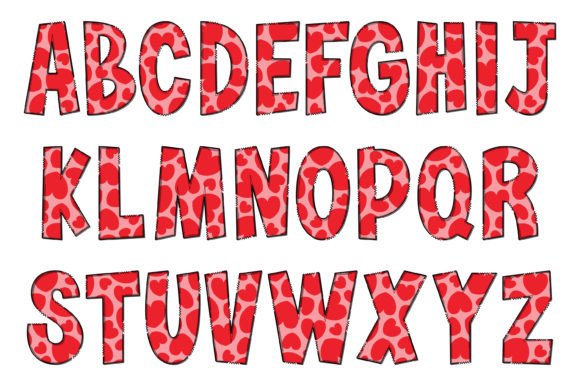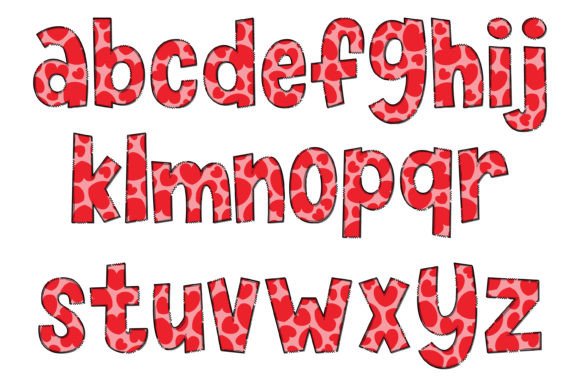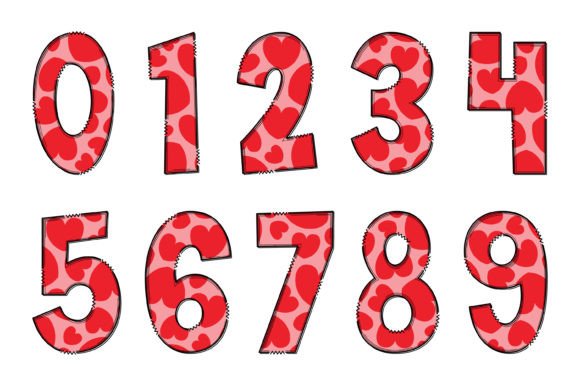
Big Love Font: The Perfect Choice for Playful and Artistic Designs
Are you looking for a font that can add a touch of playfulness and whimsy to your designs? Look no further than the Big Love font! This delightful font is perfect for designers and crafters who want to create engaging and artistic designs that capture the imagination of their audience. In this article, we’ll explore the features and benefits of the Big Love font, and how it can be used in a variety of design projects.
What is Big Love Font?
Big Love font is a color font, specifically an Opentype-SVG font, which means it’s a cutting-edge font technology that allows for colorful and intricate designs. This font is perfect for designs that require a playful and artistic feel, such as children’s books, posters, invitations, greeting cards, and more. The Big Love font is a versatile font that can be used in a wide range of design projects, from digital designs to print materials.
Use Cases for Big Love Font
Big Love fonts are often used in designs that aim to convey a playful or artistic feel. Here are some examples of how this font can be used:
- Children’s Books: Children’s books often utilize fonts that are whimsical, colorful, and easy to read, creating an engaging reading experience for young audiences. The Big Love font is perfect for children’s books, as it’s fun, playful, and easy to read.
- Posters: Posters are a great way to grab attention and convey a message in a visually appealing way. The Big Love font is perfect for posters, as it’s bold, colorful, and eye-catching.
- Invitations: Invitations are a great way to set the tone for an event or celebration. The Big Love font is perfect for invitations, as it’s playful, fun, and festive.
- Greeting Cards: Greeting cards are a thoughtful way to show someone you care. The Big Love font is perfect for greeting cards, as it’s warm, friendly, and inviting.
Tips for Using Big Love Font
To get the most out of the Big Love font, here are some tips:
- Experiment with Colors: One of the benefits of the Big Love font is its ability to display a range of colors. Experiment with different color combinations to create unique and eye-catching designs.
- Use it in Combination with Other Fonts: The Big Love font is a bold and playful font, but it can also be paired with other fonts to create a unique and interesting design.
The Big Love font is a versatile and playful font that’s perfect for designers and crafters who want to create engaging and artistic designs. With its bold and colorful design, it’s perfect for a range of design projects, from children’s books to posters and invitations. By following the tips outlined in this article, you can get the most out of the Big Love font and create stunning designs that capture the imagination of your audience.